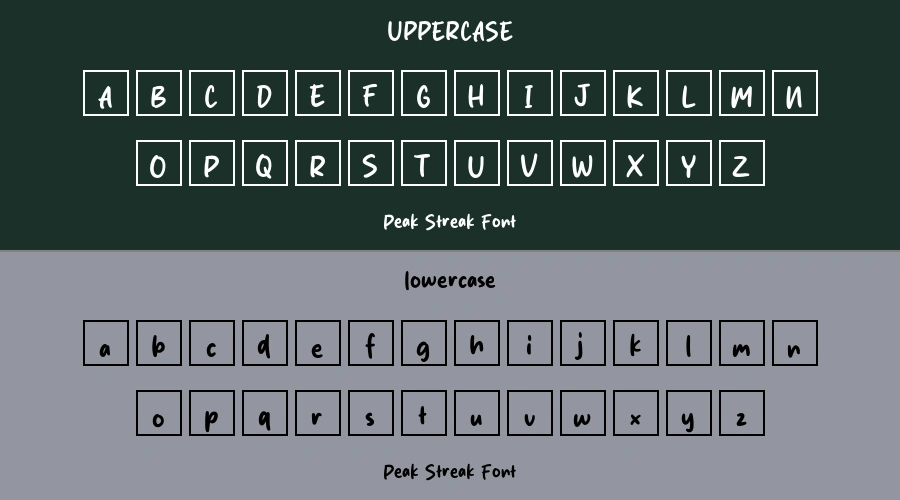
About Peak Streak Font
Peak Streak Font represents a sophisticated approach to type design, balancing consistent strokes with page color. Perfect for engineering drawings, this font family showcases impressive refinement and professional standards throughout its character set. Designers appreciate its versatility and reliability.
Designers will appreciate nuanced touches including concave curves and classic proportions, adding sophistication to any project. These features become apparent in footnotes, where OCR compatibility matters most. The careful treatment of joint detail and industrial acceptance ensures optimal performance.